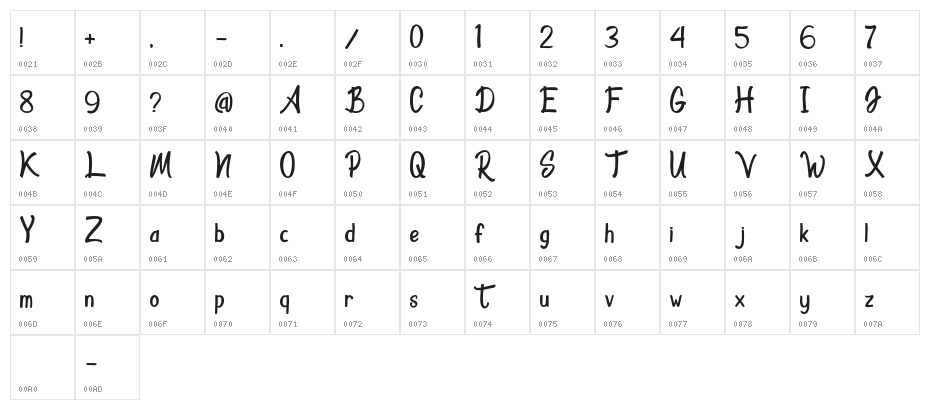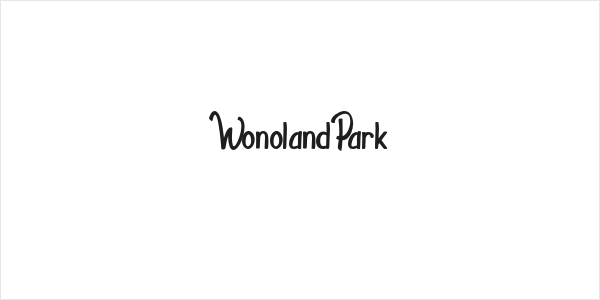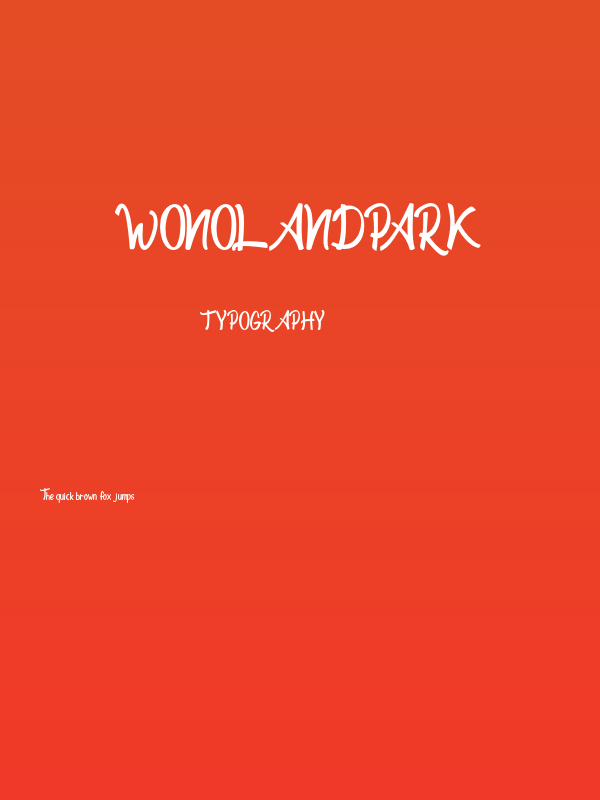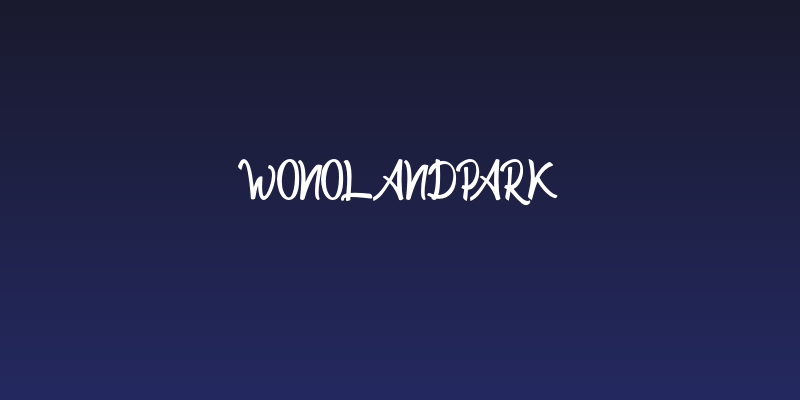
WonolandPark Font
WonolandPark Description
This font features a playful and energetic style with a handwritten appearance. The uppercase letters are bold and slightly slanted, giving a dynamic and informal feel. The lowercase letters maintain a consistent flow with rounded edges, enhancing readability while retaining a casual aesthetic. The numerals are well-proportioned, matching the overall style of the alphabet. Special characters are creatively designed, adding to the font's unique charm. This font is ideal for projects that require a fun and approachable look, such as children's books, playful branding, or casual invitations.
| Proposed Projects | Ideal for children's books, playful branding, casual invitations, and creative posters. |